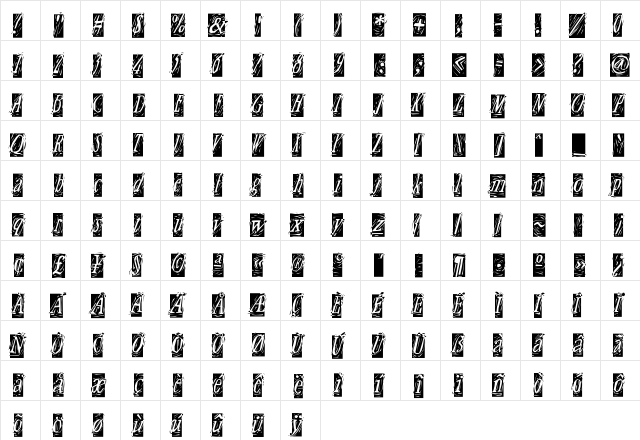
Craft Reversed Font Preview
Craft Reversed
Design Context for Craft Typeface
Craft is a composed and adaptable typeface that performs quietly and consistently across a wide range of design contexts.